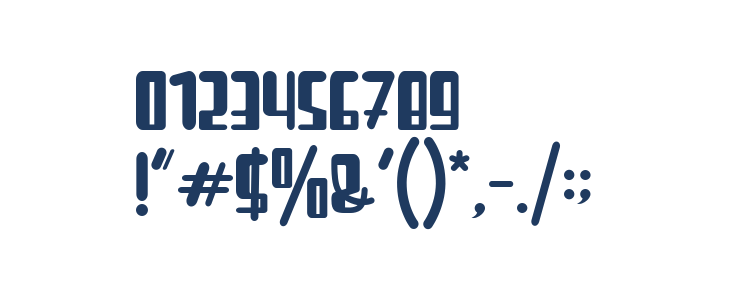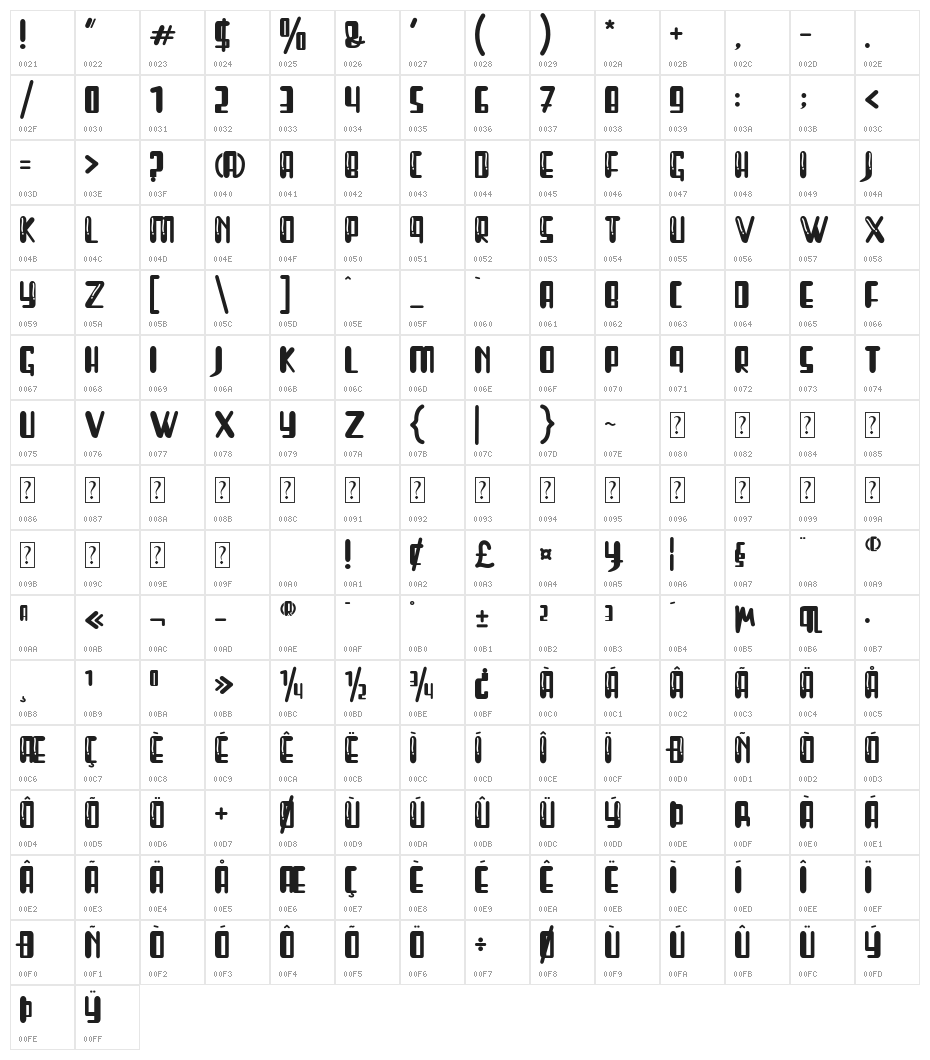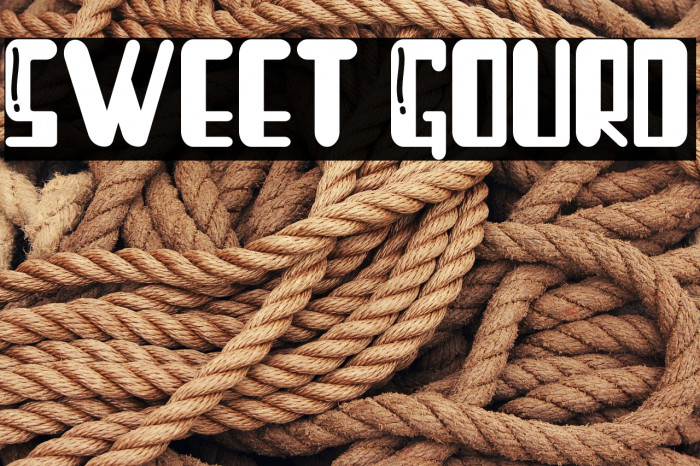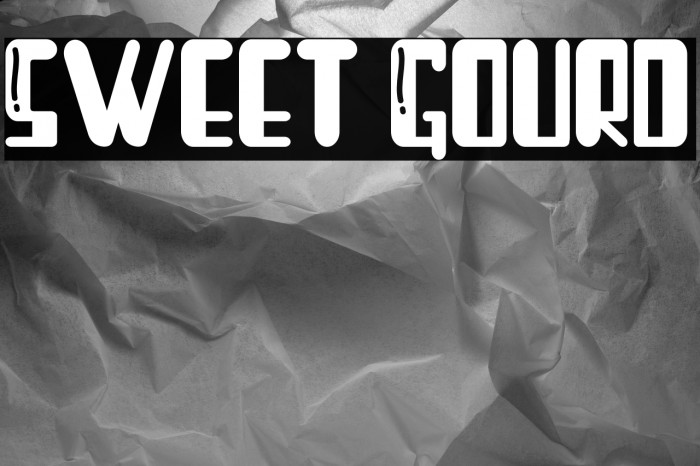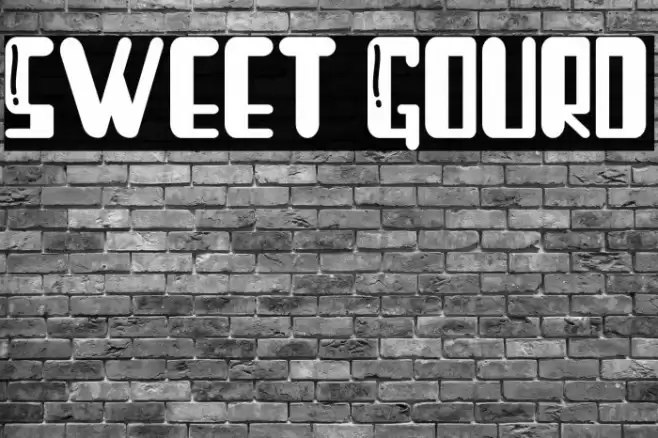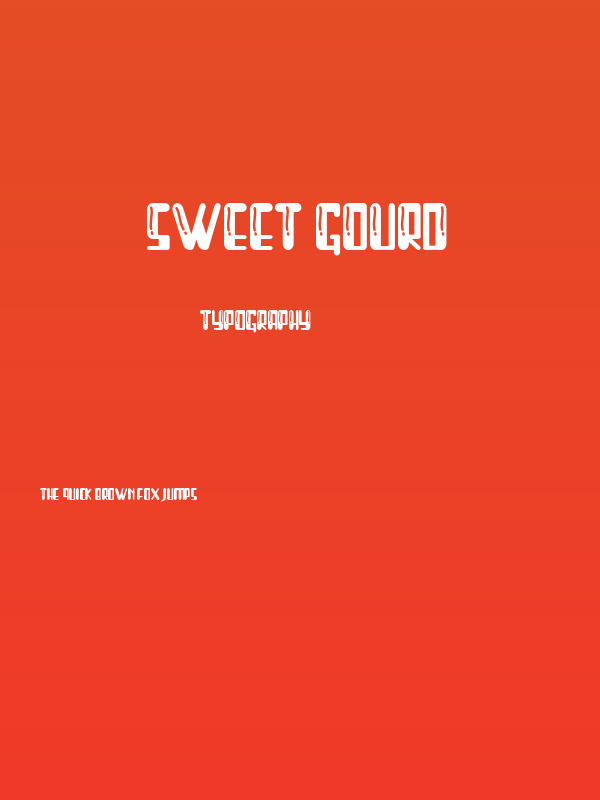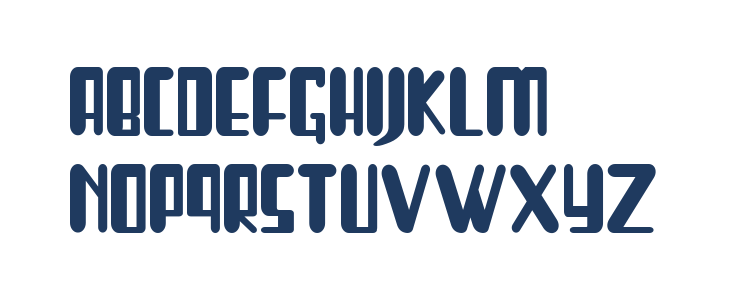
Sweet Gourd Font
Sweet Gourd Description
This font features a bold and playful design with a unique, rounded style that incorporates subtle cutouts and curves, giving it a whimsical and modern appearance. The uppercase and lowercase letters maintain a consistent thickness, enhancing readability while adding a touch of creativity. The numerals and special characters follow the same design principles, ensuring a cohesive look across all elements. The font's distinctive style makes it suitable for projects that require a fun and engaging visual impact.